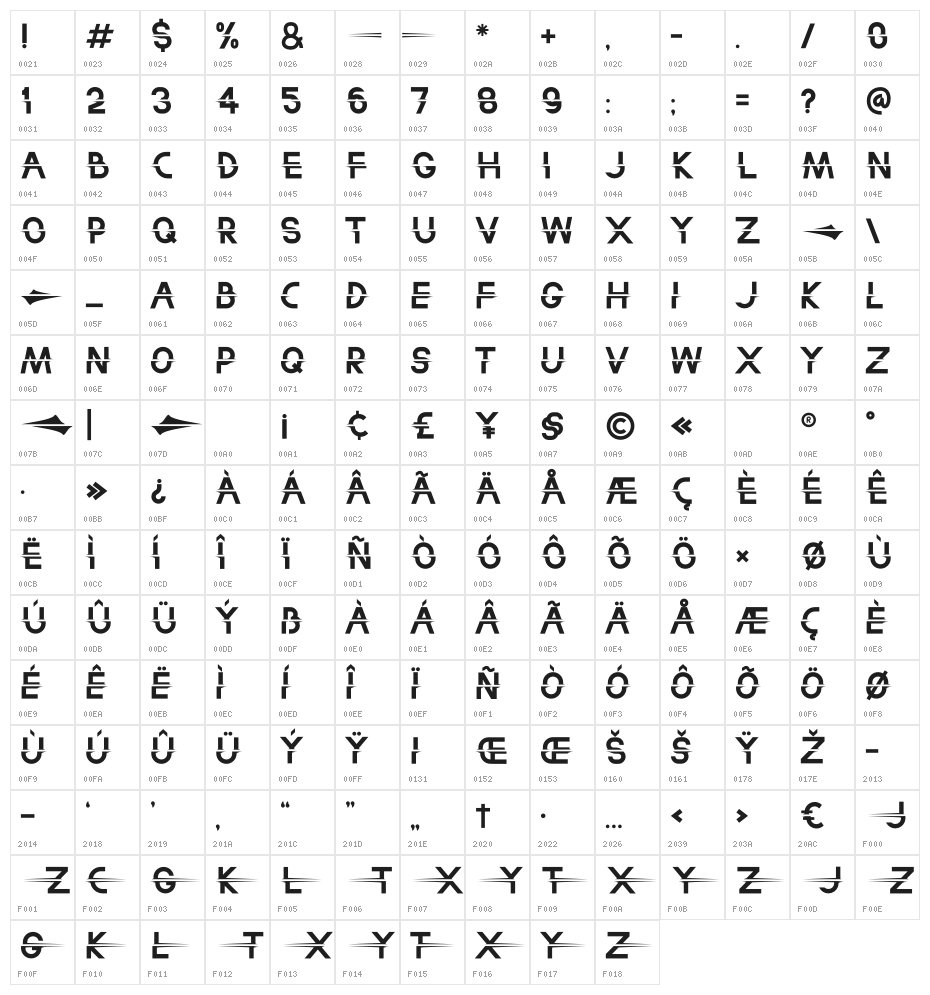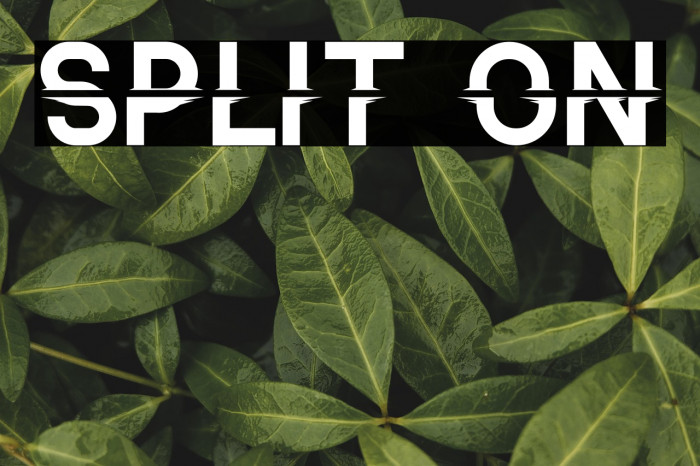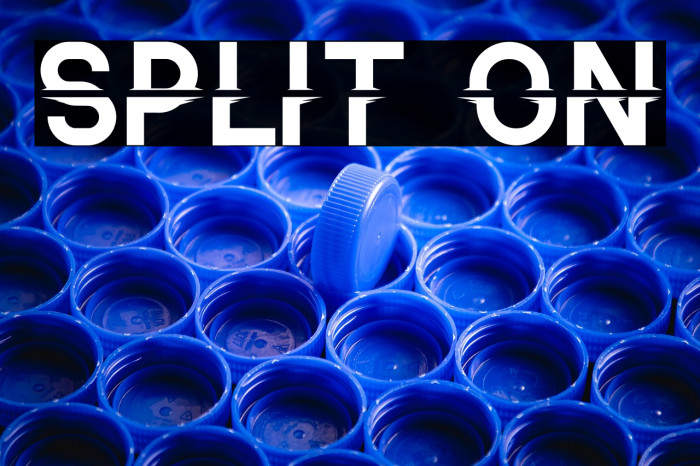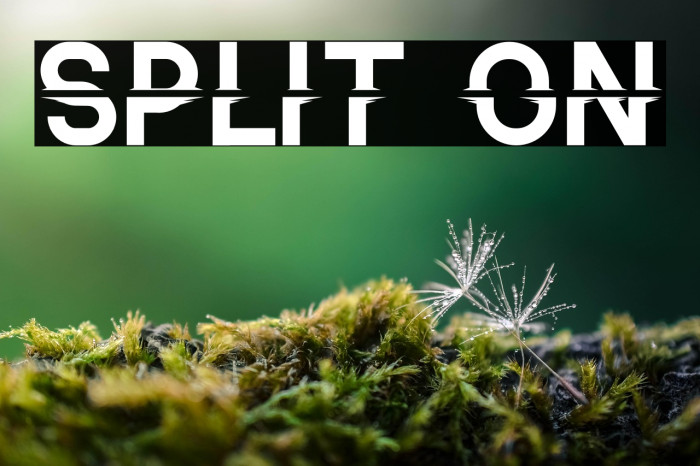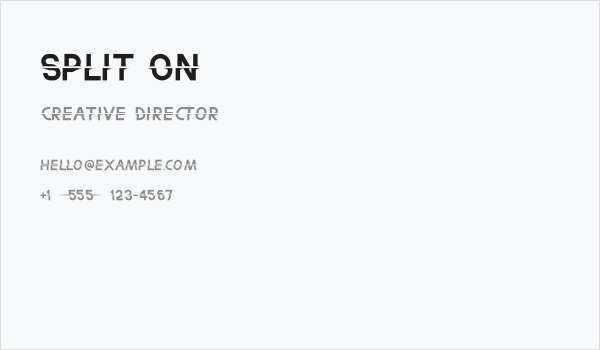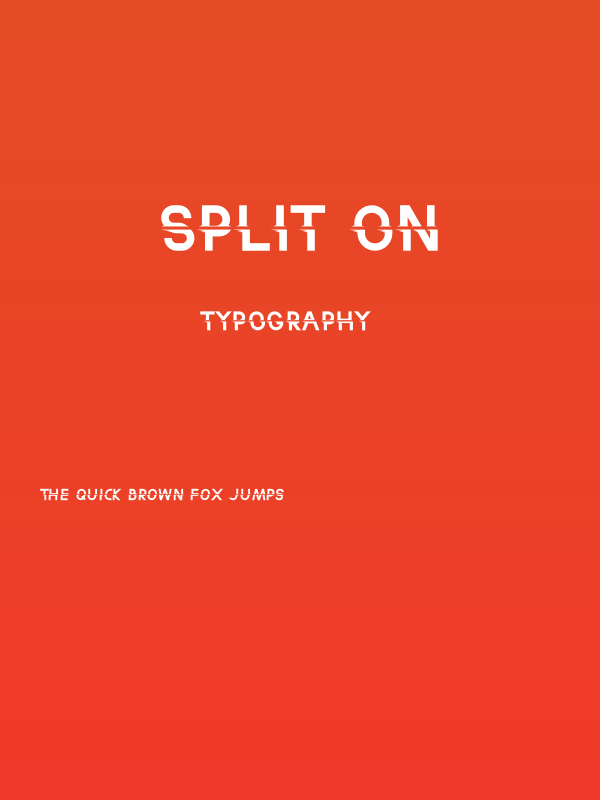
Split On Font
Split On Description
This font features a unique and striking design where each character is bisected horizontally, creating a split effect that adds a dynamic and modern twist. The letters are bold and sans-serif, providing a strong and impactful presence. The split design introduces an element of movement and disruption, making it ideal for attention-grabbing headlines or artistic projects. The characters maintain a consistent width and weight, ensuring readability despite the unconventional style. The numbers and special characters follow the same split aesthetic, maintaining uniformity across the font.
| Proposed Projects | This font is perfect for modern branding, edgy posters, album covers, and digital art projects where a bold statement is needed. |